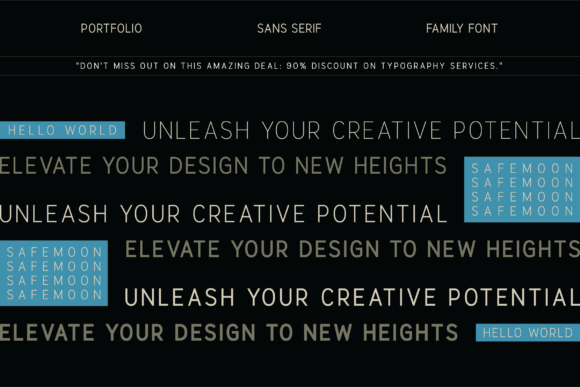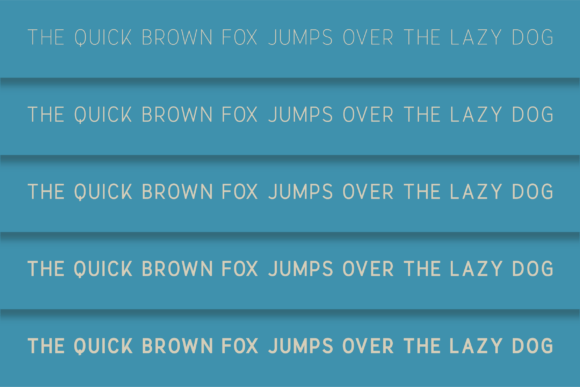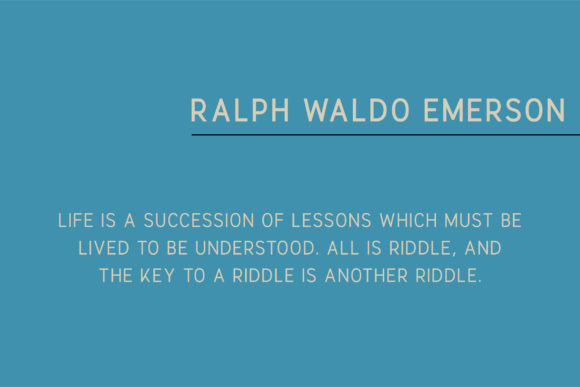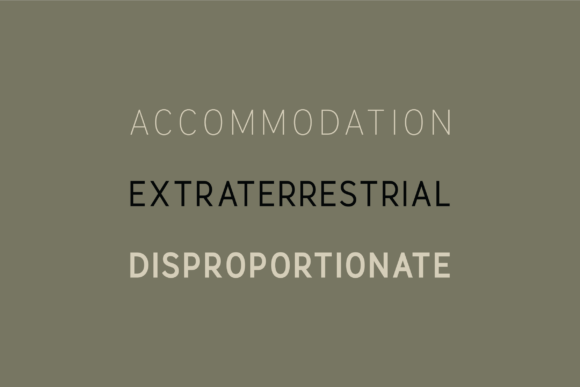
Introduction to Safemoon Font
As a designer, you’ve probably experienced that moment when the perfect font makes all the difference in a project. You’re staring at a blank canvas, searching for the perfect combination of style and substance, and suddenly, it clicks – the right font elevates your entire creative project. This is exactly what happens when you discover Safemoon Font, a masterpiece of elegance and minimalism.
Safemoon Font is more than just a design resource – it’s a game-changer. With 5 distinct weights, it offers unparalleled versatility, allowing you to seamlessly adapt to any project, from logos and magazines to film posters and beyond. What sets it apart is its precision-crafted design, striking the perfect balance between sophistication and simplicity.
Safemoon Font Key Features
- Unique, custom font with a transparent background, perfect for logo design and branding.
- Includes a comprehensive set of characters, including uppercase and lowercase letters, numbers, and punctuation marks.
- Perfect for designers seeking a modern, sleek, and professional font for their creative projects.
Honest Review: Safemoon Font
As a designer, I’m always on the lookout for high-quality design resources to elevate my creative projects. Recently, I came across the Safemoon Font, and I wanted to share my honest review with you.
First impressions are everything, and the Safemoon Font didn’t disappoint. The font is clean, modern, and versatile, making it perfect for a wide range of design applications. The free download option is a huge plus, and the transparent background allows for seamless integration with any design.
Here are some things that work well with the Safemoon Font: ✨
- Easy to customize and adjust to suit your design needs
- Perfect for digital and print projects, including logos, branding, and marketing materials
- High-quality font that looks great on any device or platform
- The font may not be suitable for certain design applications, such as complex typography or intricate text arrangements
- Some users may find the font too modern or trendy, which may not appeal to all design styles
Safemoon Font
Tips for Getting the Most Out of Safemoon Font
For optimal results, use the Safemoon Font with a transparent background to create a clean and modern design. Experiment with different font sizes and styles to find the perfect fit for your project.
The Safemoon Font is ideal for:
- Marketing materials and brochures
- Website headers and footers
- Social media graphics and ads